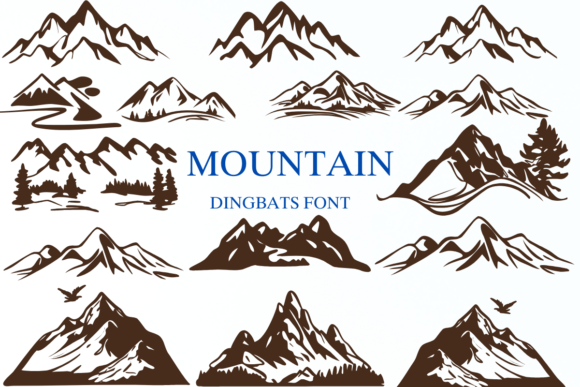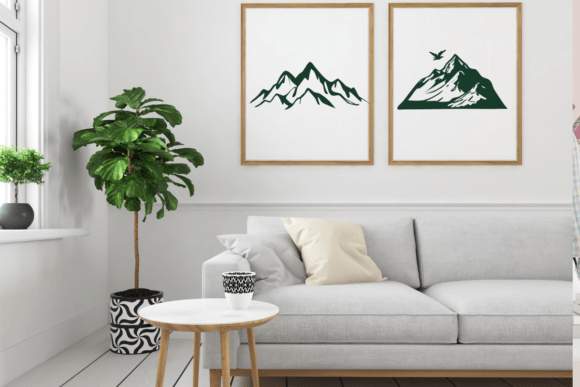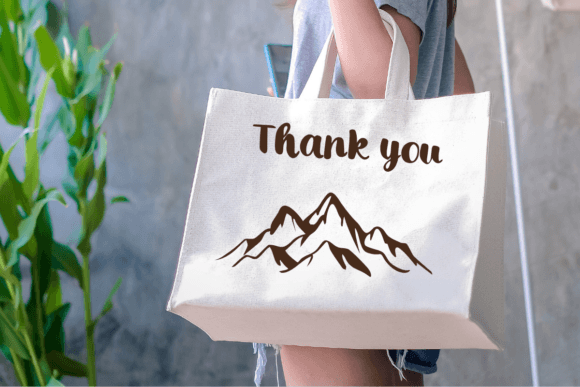
Mountain Font
Mountain is a dingbats font with a nature themed style. This font can enhance your creative projects such as wedding invitations, DIY, crafts, decorations, logos, and many other creative ideas.